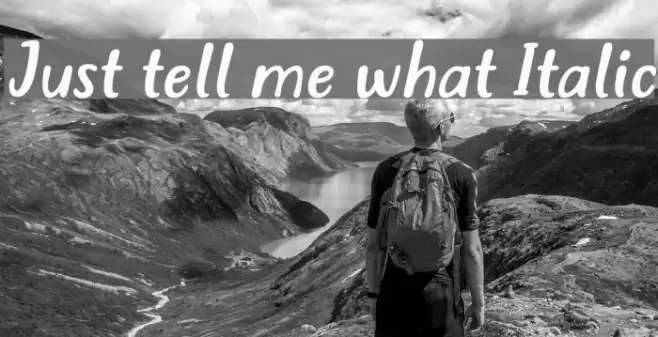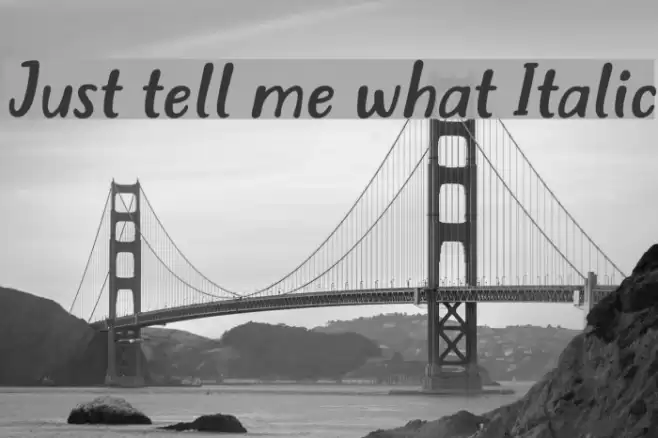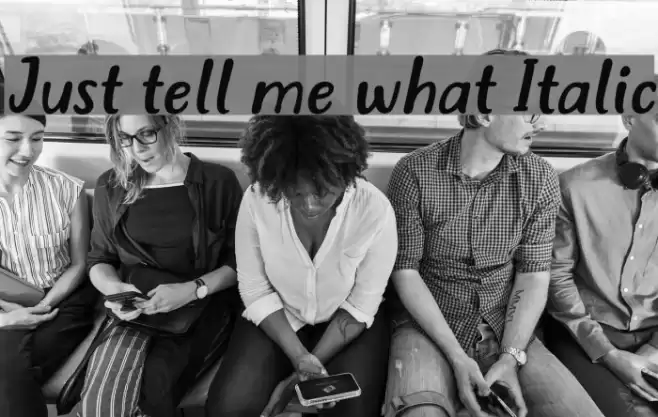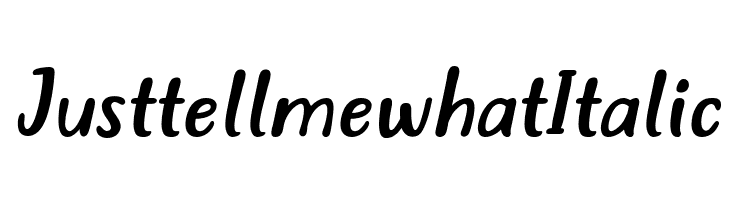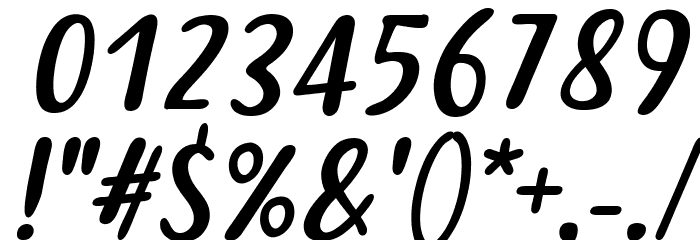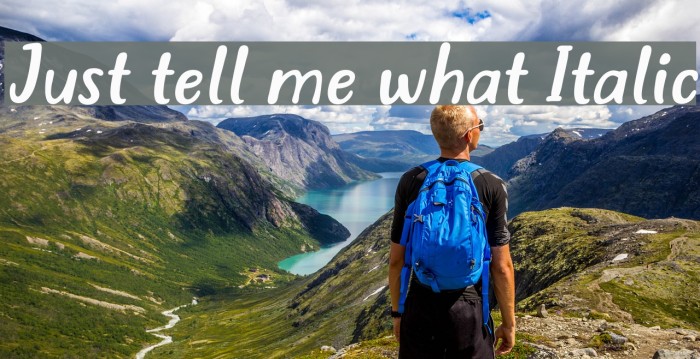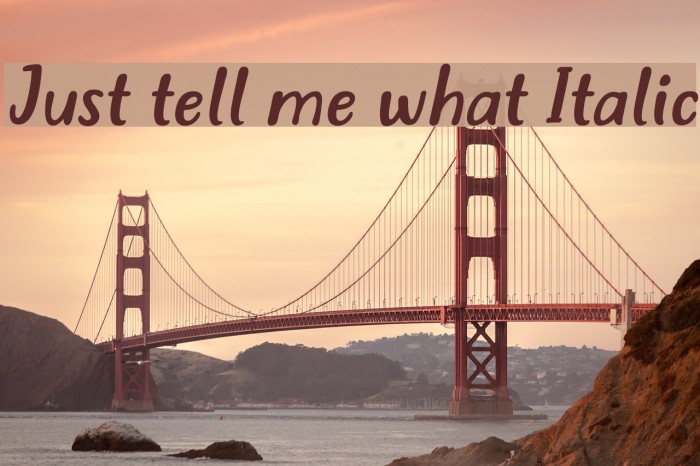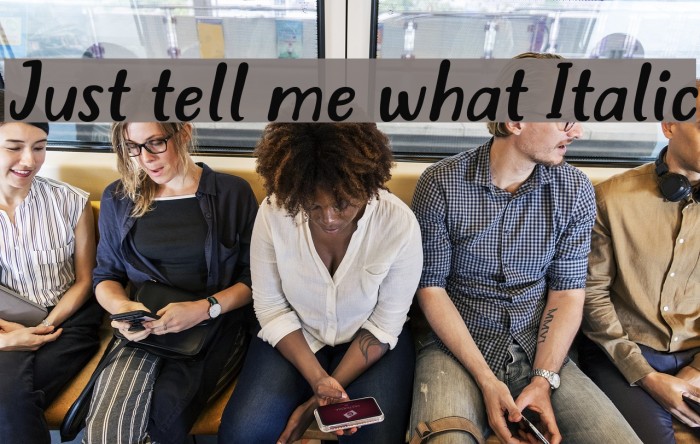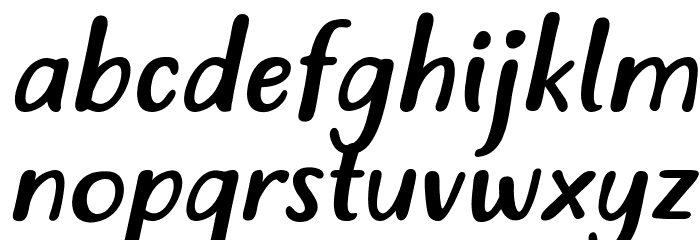
Just tell me what Italic Font
Just tell me what Italic Description
This font features a dynamic and fluid style with a handwritten appearance, characterized by its slanted, italicized form. The letters have a smooth and continuous flow, giving it a casual yet elegant look. The strokes are moderately thick, providing a balanced contrast that enhances readability while maintaining a stylish flair. The uppercase and lowercase letters are well-proportioned, and the numerals are clear and distinct. Special characters are included, maintaining the overall aesthetic of the font. This typeface is versatile, suitable for a variety of design projects that require a personal touch.
A dynamic, italicized handwritten font with smooth, flowing strokes from Handwritten fonts.
- Proposed Projects: Ideal for greeting cards, invitations, personal branding, and creative projects that require a personal, elegant touch.
- Use Case: Headlines, Logos, Creative projects